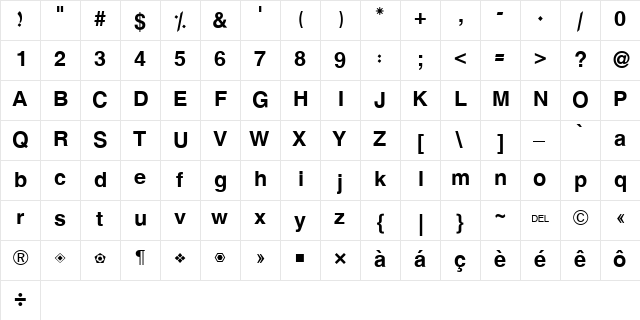
Hacen Newspaper Regular
| Foundry | Muhammad Hacen |
| Designer | Muhammad Hacen |
Design Context for Hacen Newspaper Typeface
Hacen Newspaper offers clean, dependable letterforms without strong stylistic allegiance, making it a practical choice for designers who need flexibility.
Pro Tip: Pair Hacen Newspaper with a font of contrasting weight or personality to build a more expressive typographic hierarchy.